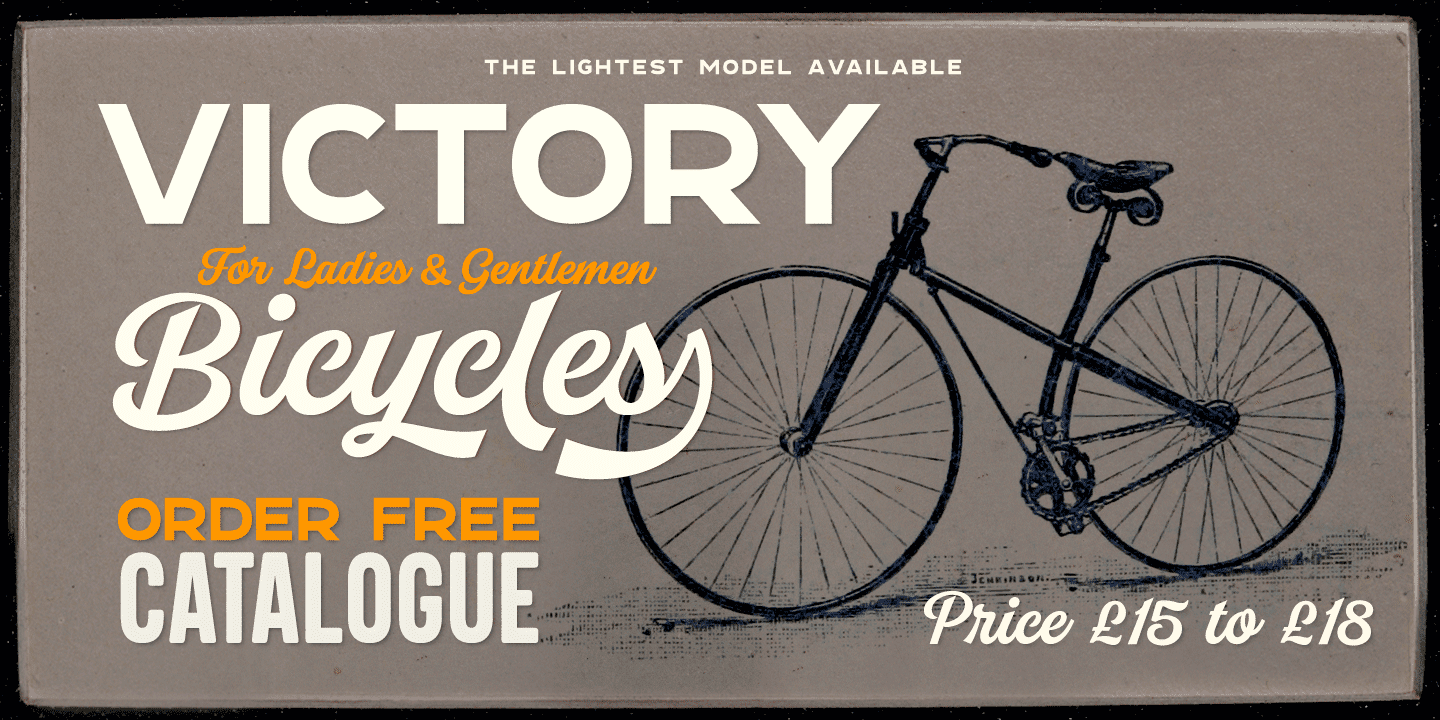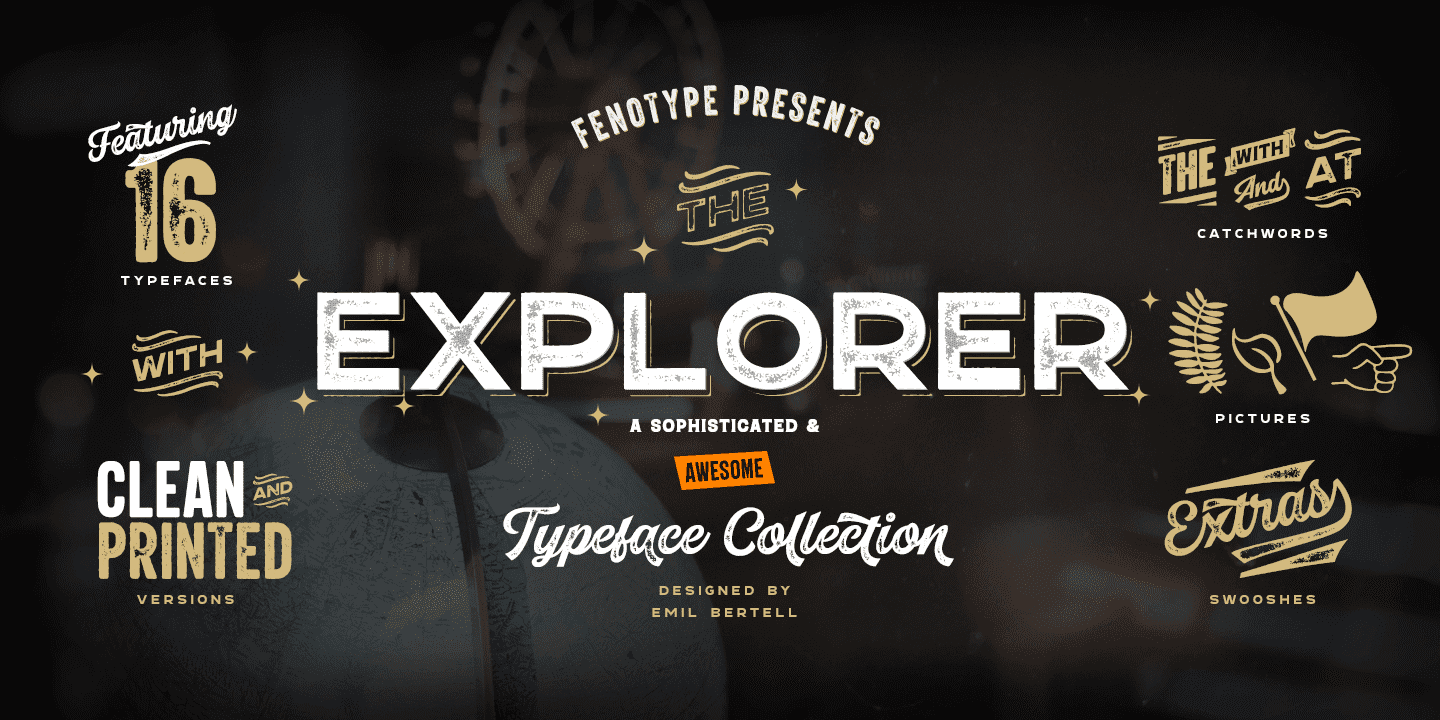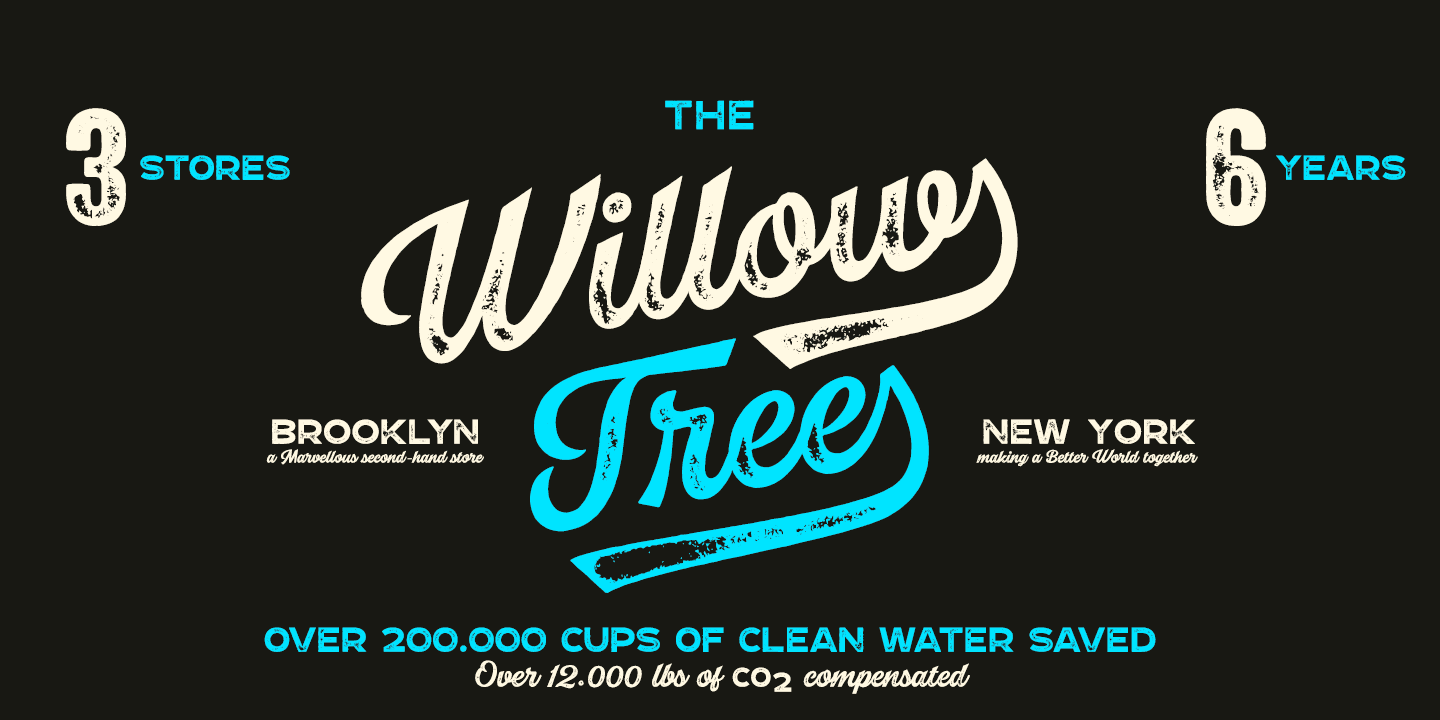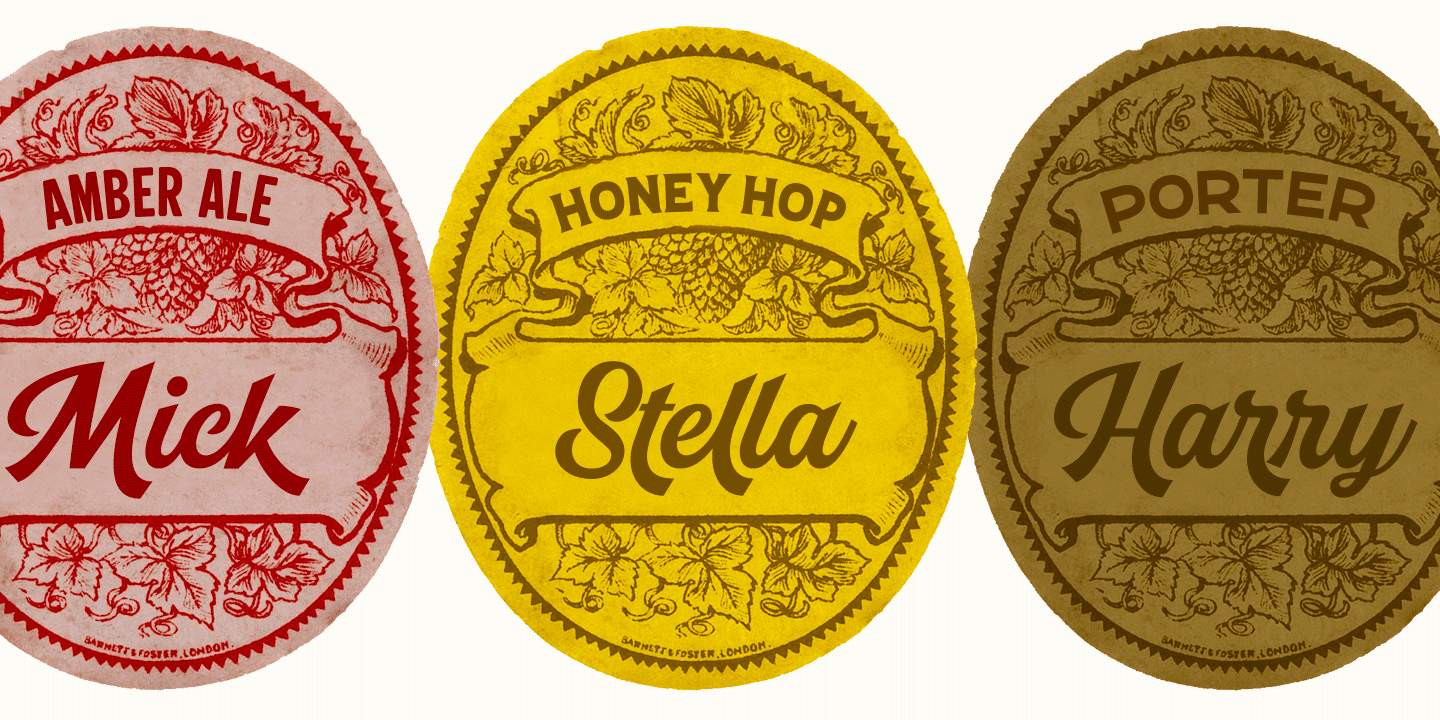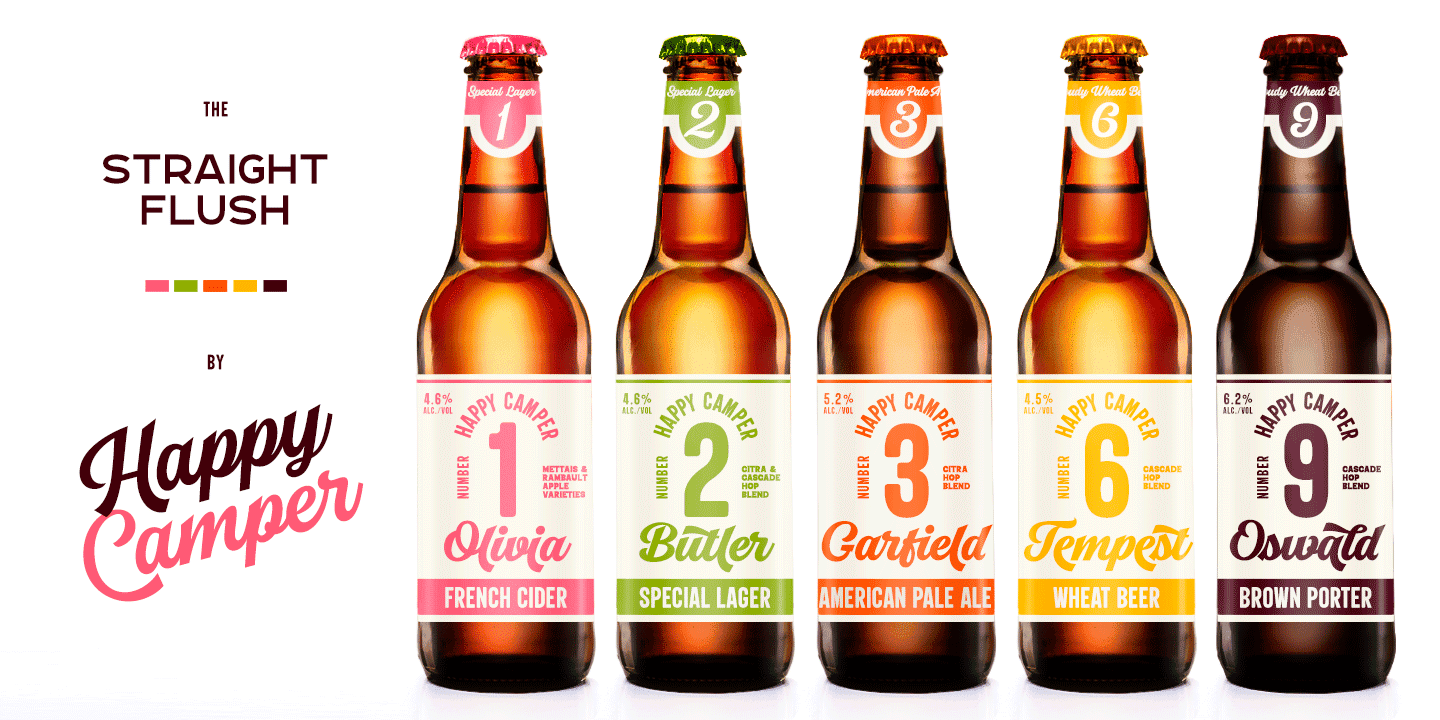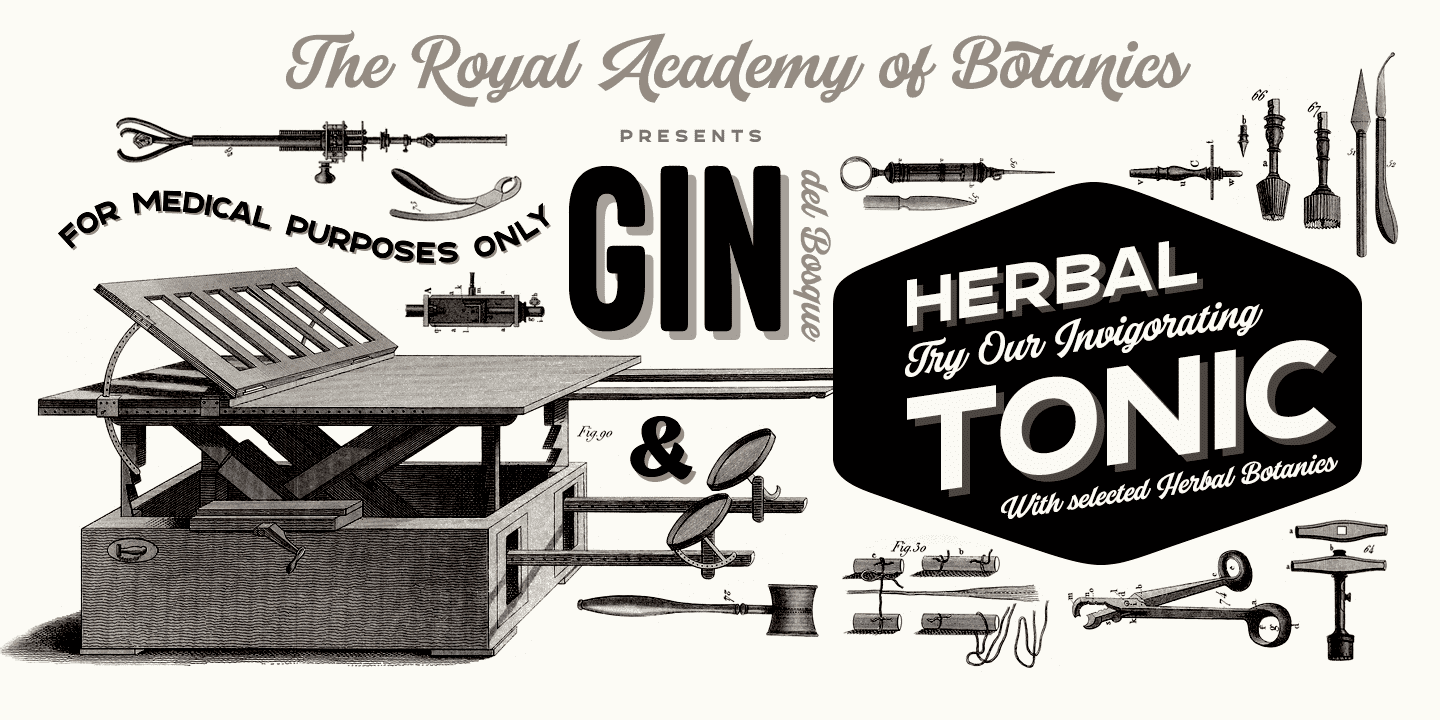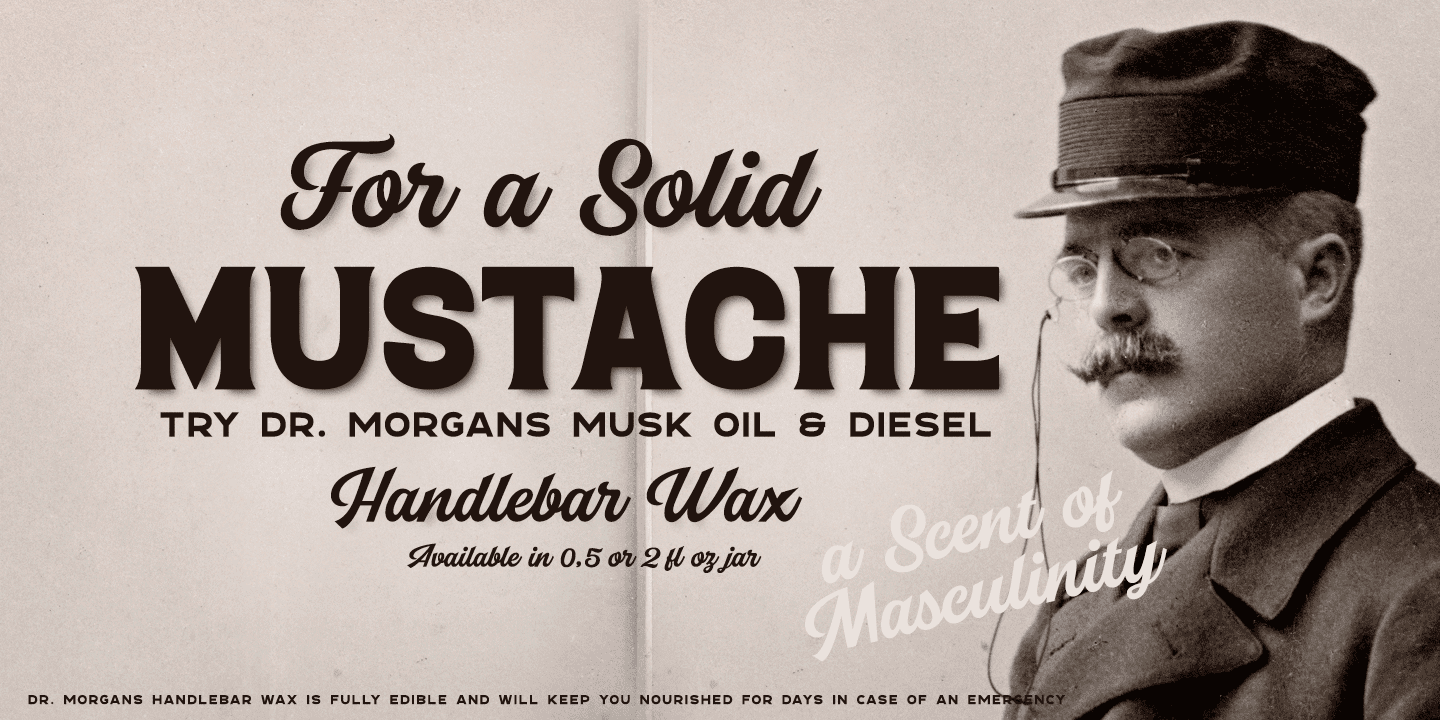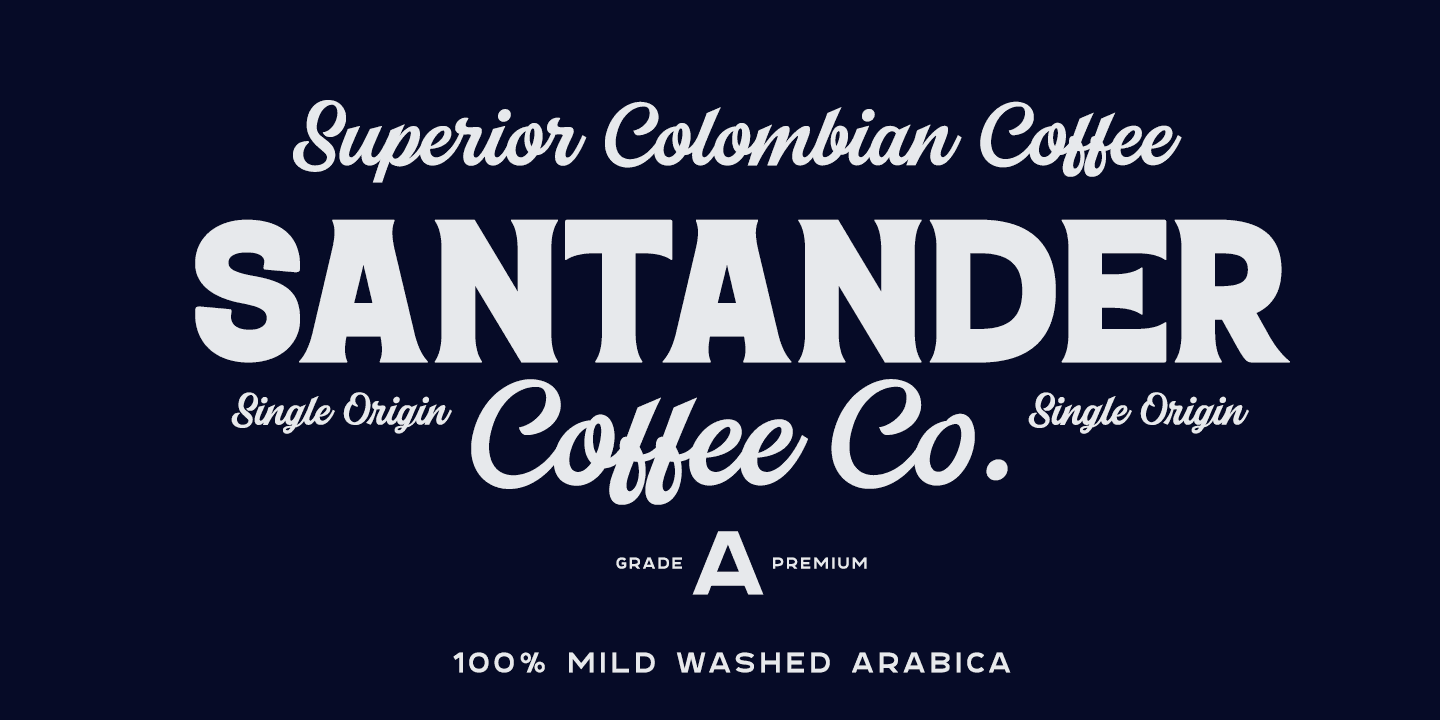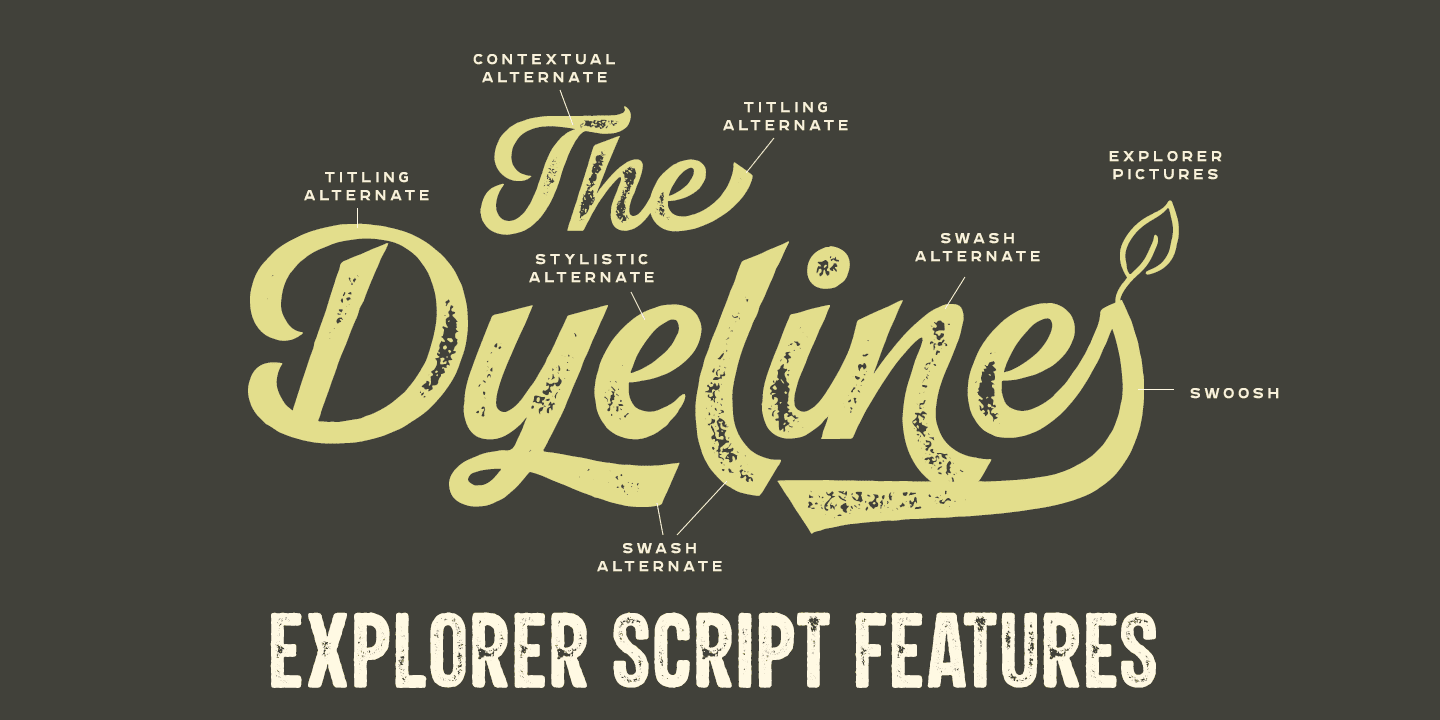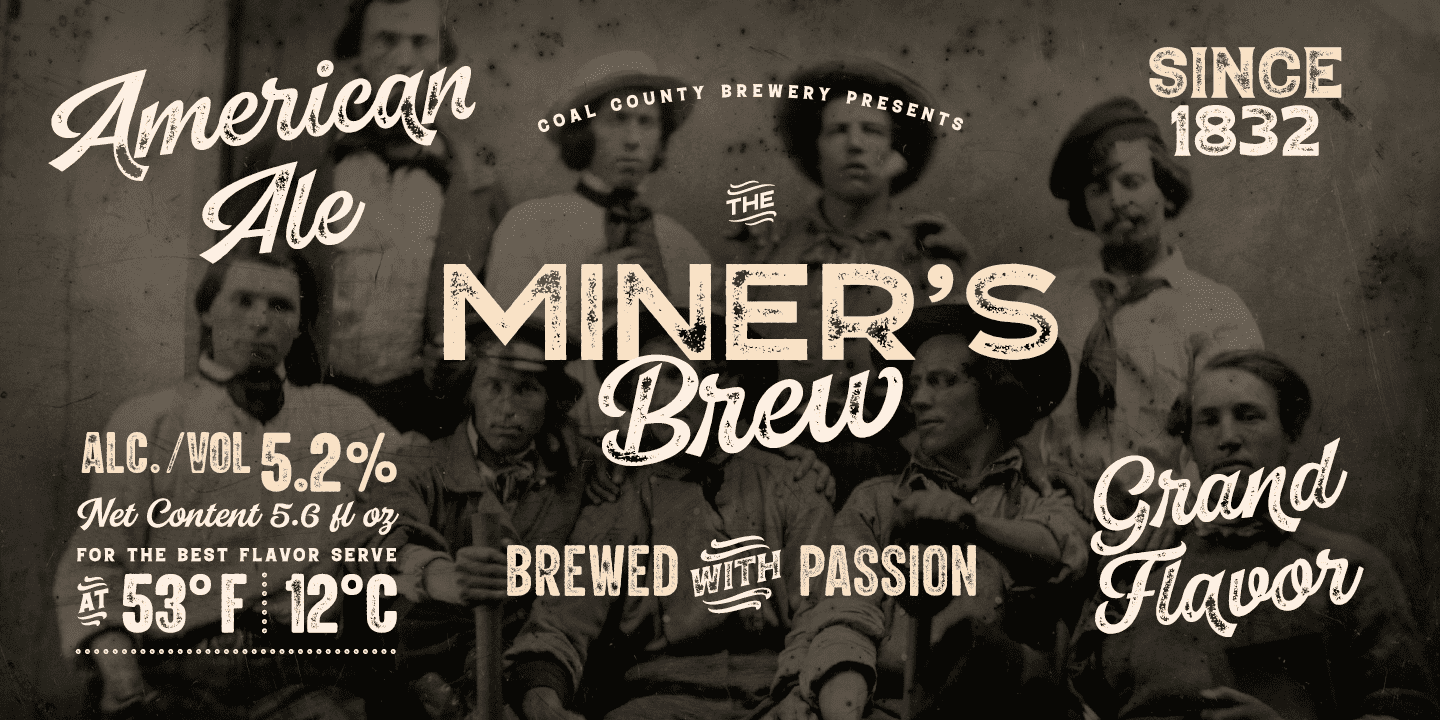
Explorer collection includes following:
• 8 Fonts - a clean and textured version of each
• Catchwords
• Swooshes
• Pictures
Explorer’s core is a strong script type with straight edges. All the fonts are designed to work nice together. Here’s a short introduction to the styles:
•Explorer Script is equipped with Contextual Alternates that make the connections between letters smooth. In addition it has Swash, Stylistic and Titling Alternates for standard characters for more customised look. Explorer Script has three weights.
•Explorer Sans is a wide all caps sans-serif that doesn’t shy away from taking it’s own space. Explorer Sans has two weights.
•Explorer Condensed is a sturdy all caps condensed sans-serif with rounded edges. Explorer Condensed has two weights.
•Explorer Serif is a bulky all caps serif.
•Explorer Swoosh is a collection of strokes and swooshes designed to go with the Script. Try adding a connecting one in the end of a word written with Script or place a loose swoosh above or below a word.
•Explorer Catchword is a collection of catchwords designed to go with Explorer fonts.